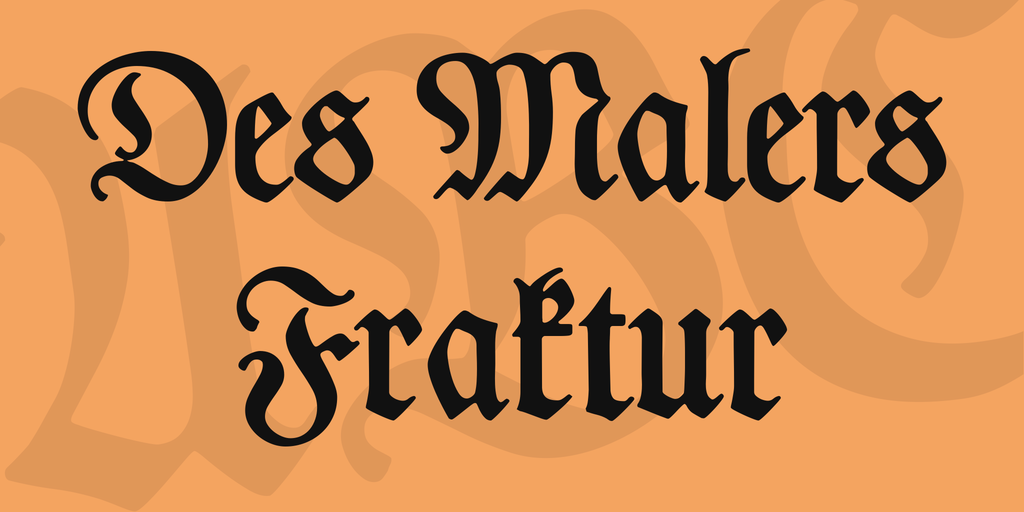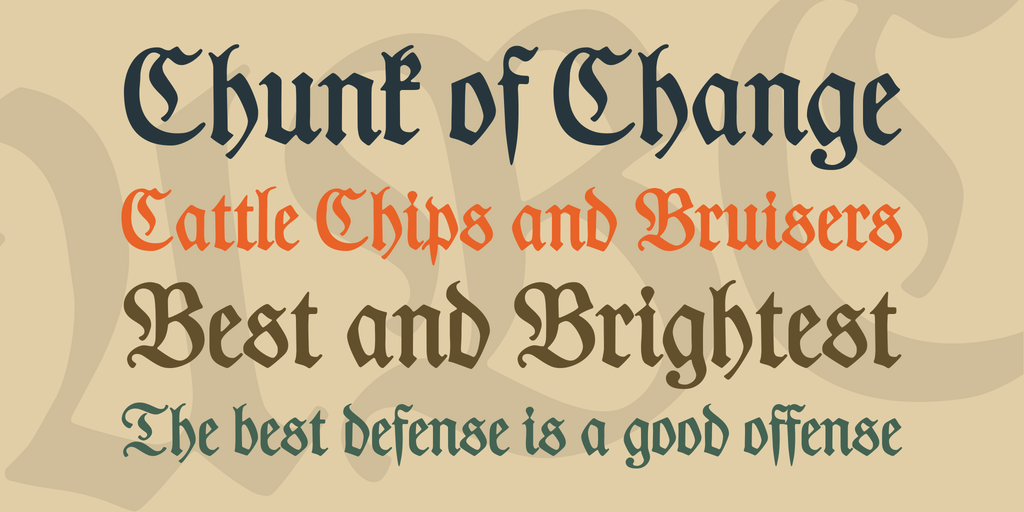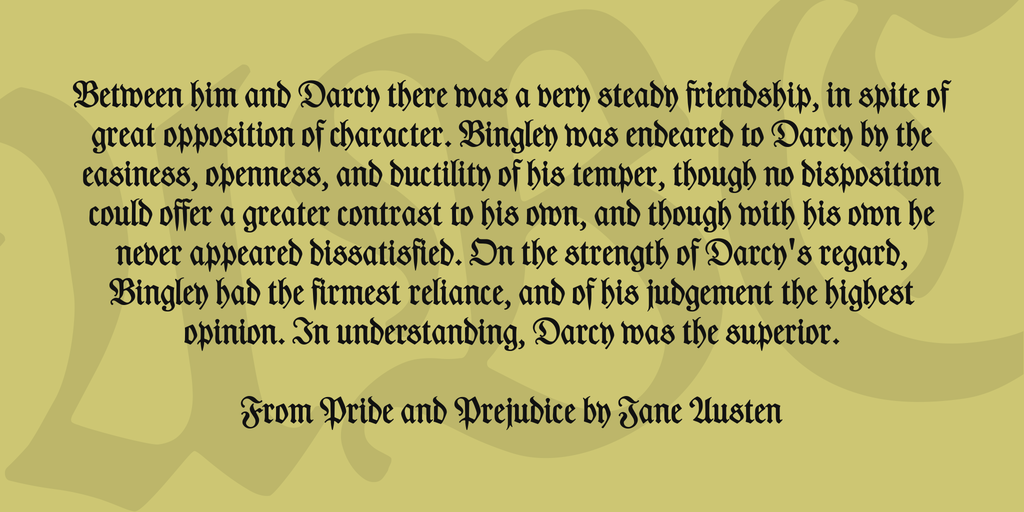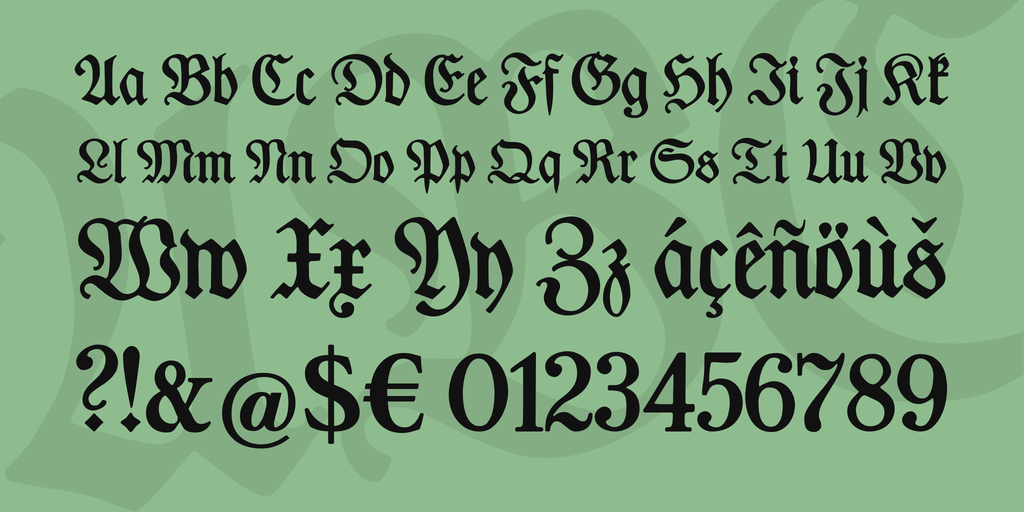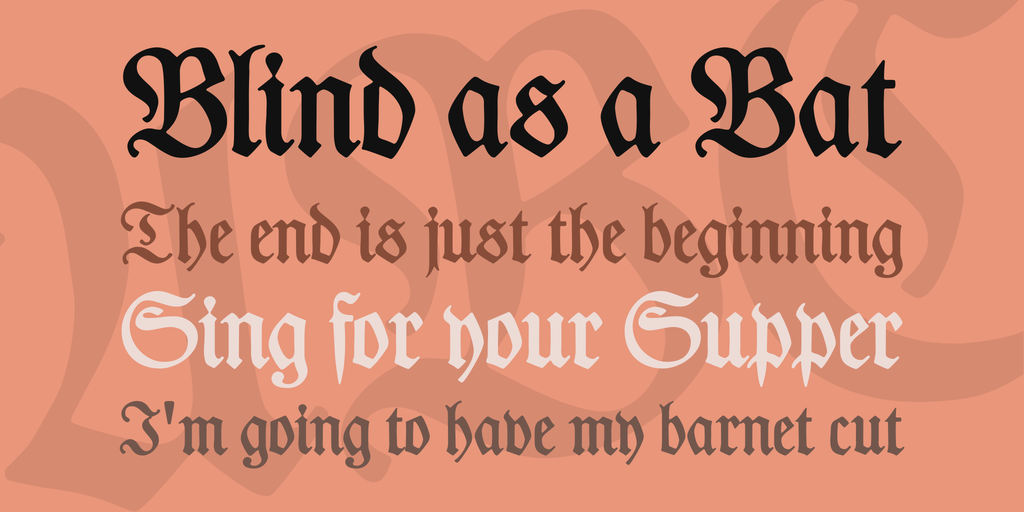
Des Malers Fraktur Font
Translation of the original German description:
This font is based on a draft from the book “Die Schriften des Malers” (The lettering of the painter) by Walter Schenk, published by Dr. Pfannenberg & Co.
At typografie.info Ralf Herrmann writes about this book: “The writings of the painter is a large-sized folder with templates and instructions for the painting-, varnishing- and sign-making trade.” The folder contains a 124-page textbook, and 50 separate drafts which mainly include lettering samples.
The book describes all aspects of the sign-painter-craft – starting with stylistic / historical fundamentals of lettering to all design and technical issues in the design and implementation of painted signs. The lettering drafts are written or drawn with a high standard and present German sign painter’s type design from the mid-20th century in an impressive way.”
There is really nothing to add, except that I am gradually making these fonts available for use on computers.